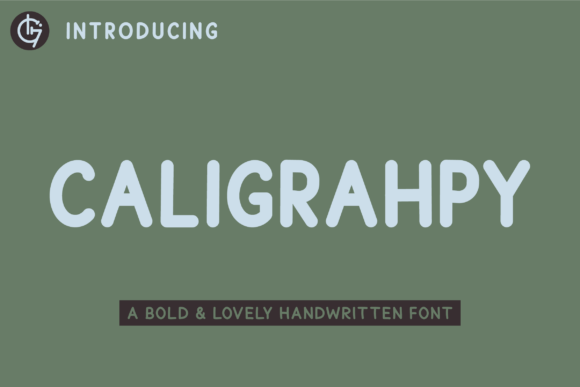
Discovering the Perfect Font: A Story of Inspiration
As a designer, there’s nothing quite like the thrill of stumbling upon a font that perfectly captures the essence of your project. It’s that ‘aha’ moment when everything falls into place, and you know you’ve found the perfect partner for your creative vision. For me, that moment came when I discovered the Blue Font.
| 👤 Author | Daniel Basualdo |
Blue Font is a simple and casual display font that exudes a clean, effortless feel. Its neat arrangement of letters makes it a versatile choice for both formal and non-formal designs. Whether you’re working on a high-end corporate project or a fun, laid-back campaign, Blue Font is sure to bring a touch of elegance and sophistication to your work.
For designers, the value of a great font like Blue Font lies in its ability to elevate and enhance your designs. With its timeless appeal and effortless style, Blue Font is a valuable addition to any designer’s toolkit.
Key Features of Blue Font
- Font Family: Blue Font is a sans-serif font family designed for digital use. It includes 6 weights: Light, Regular, Medium, SemiBold, Bold, and Black.
- Size and Resolution: Blue Font is designed for use at small sizes (6-12pt) and is optimized for resolutions up to 300 DPI.
- Unique Characteristics: Blue Font features a unique, modern design with a subtle rounded edge and a high x-height, making it highly legible in digital environments.
- Language Support: Blue Font supports a wide range of languages, including Latin, Cyrillic, Greek, and many others, making it a versatile font for global use.
Designer Review: Blue Font
Blue Font is a visually appealing font that can add a touch of sophistication to any design. ✨ The rounded edges and smooth curves of the letters make it perfect for body text, while the subtle flair at the ends of the strokes adds a hint of elegance to headings.
Here are some of its notable features:
- ✨ Highly legible, making it perfect for body text and long-form content.
- ✨ Suitable for a wide range of industries, from technology to fashion.
- ✨ Can be used for both digital and print designs.
- ⚠️ Not ideal for headlines or titles that require bold statements.
- ⚠️ May not be the best choice for designs that require a more rustic or distressed look.
- ⚠️ Limited character set and language support.
In conclusion, Blue Font is a solid choice for designers looking for a clean, elegant font that is easy to read and versatile in its applications. While it may not be the best fit for every project, it’s a great option for those seeking a classic, timeless look.
Tips for Getting the Most Out of Blue Font
To get the most out of Blue Font, use it in combination with other design elements to create a cohesive and visually appealing design. Experiment with different font sizes, colors, and styles to find the perfect balance for your project.
Blue Font is commonly used in:
- Website design and content
- Print materials and business cards
Alternatives to “Blue Font” for Designers
1. Arial Font
Arial is a sans-serif font that is widely used in digital media. It is clean, modern, and easy to read. Use Arial when you want a straightforward and unobtrusive font that won’t distract from the content. Compared to Blue Font, Arial is more neutral and lacks the distinctive blue hue.
2. Helvetica Font
Helvetica is another popular sans-serif font that is known for its simplicity and versatility. It is a good choice for headings and titles, and works well in both digital and print media. Compared to Blue Font, Helvetica is more formal and lacks the playful feel of a blue font.
Lato is a sans-serif font that is designed to be highly legible and versatile. It is a good choice for body text and is suitable for both digital and print media. Compared to Blue Font, Lato is more modern and has a more subtle feel.
Q: Is Blue Font compatible with accessibility guidelines?
Yes, Blue Font is designed with accessibility in mind. The font family meets the Web Content Accessibility Guidelines (WCAG 2.1) and the Americans with Disabilities Act (ADA) standards for digital accessibility. The font’s clear and readable design ensures that users with visual impairments can easily read and understand the content. Additionally, the font’s high contrast ratio and clear typography make it easy to read on various screen sizes and devices.